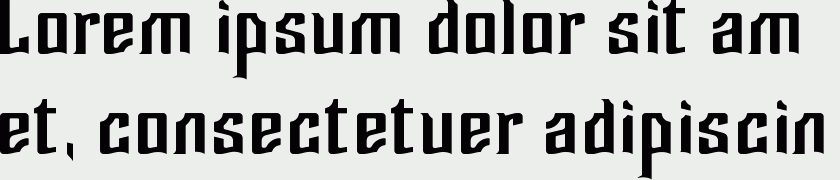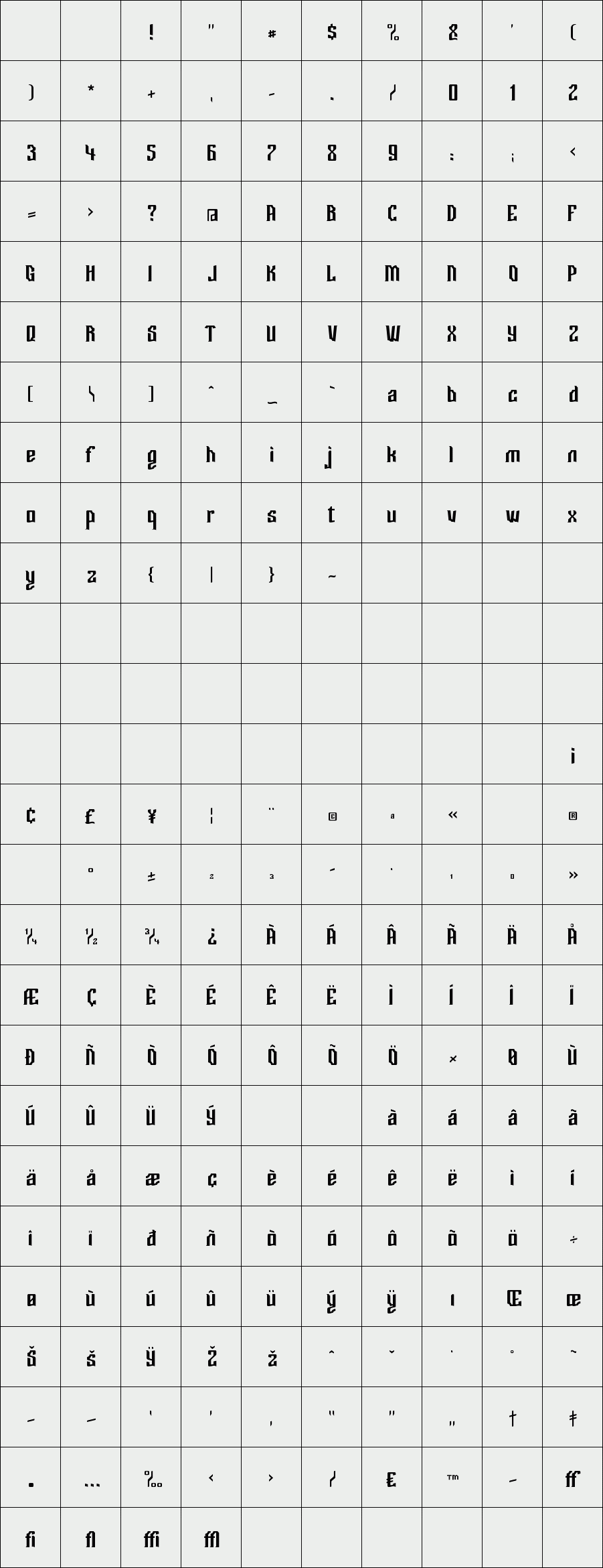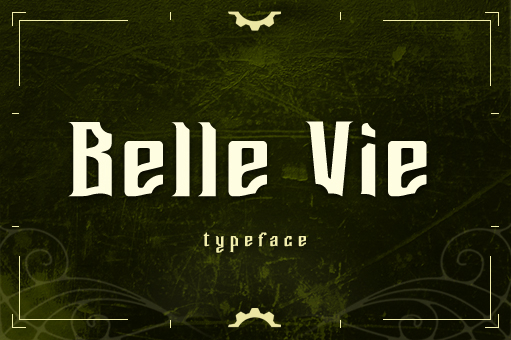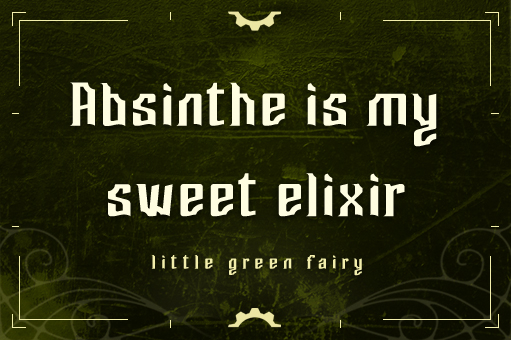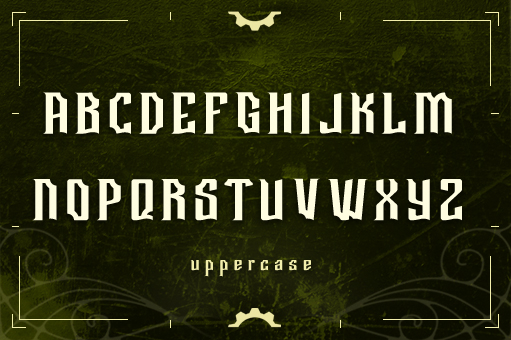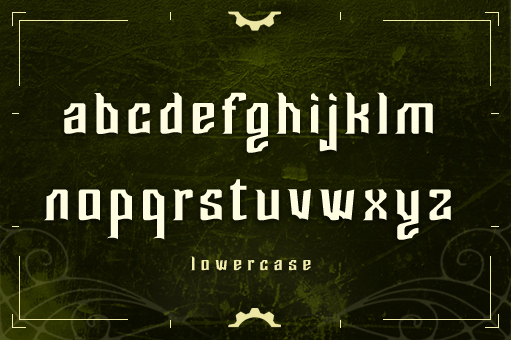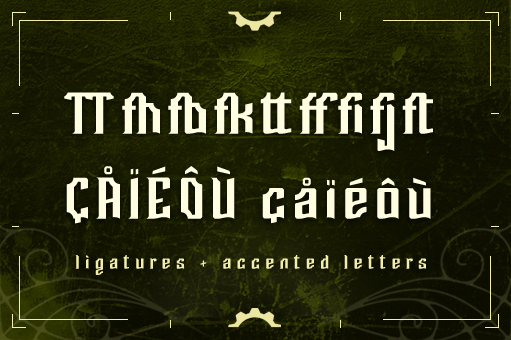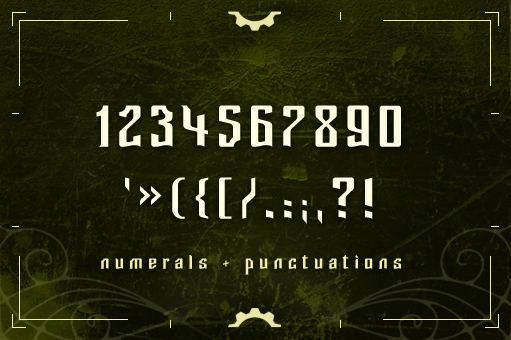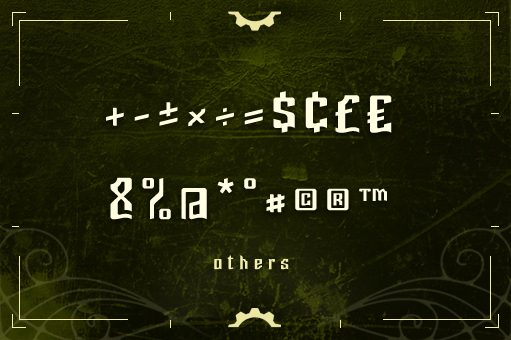
Belle Vie
Belle Vie is a decorative font inspired by Art Nouveau.
It works well for posters, t-shirts or on an Absinthe bottle.
Available in uppercase, lowercase, numerals, ligatures and punctuations.
Designer: Paul-Nicolas Mau